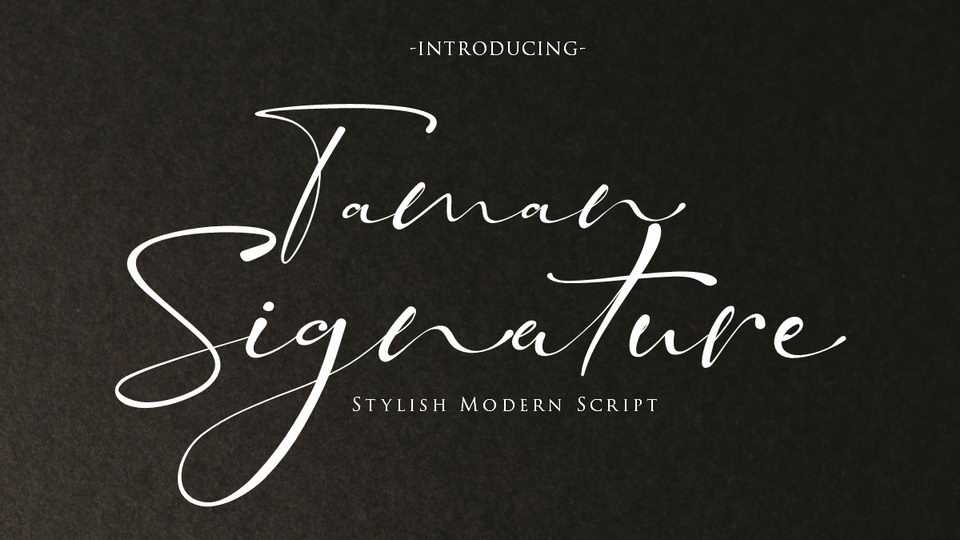
Download Taman Signature font, a stylish modern script with casual chic flair. Taman Signature script is perfect for wedding, social media, blogs, titles, magazine layouts, monograms, businesses and anywhere you need a free flowing modern looking script.